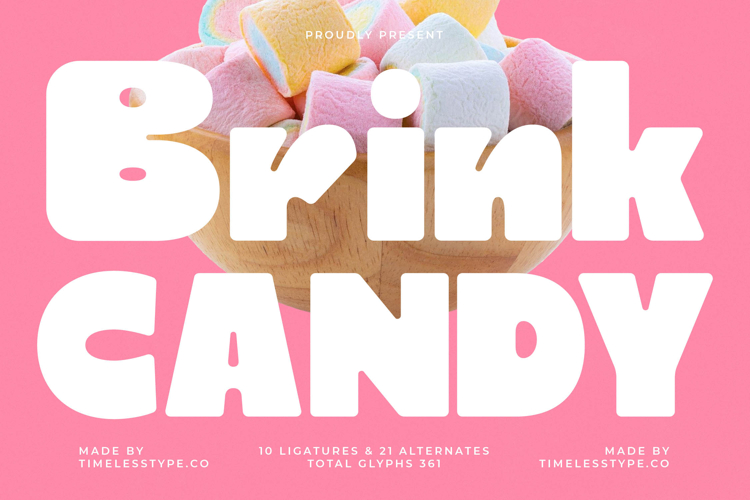
Brink Candy - Bold Display Font
Unleash a wave of delightful charm with Brink Candy - Bold Display Font, a truly captivating typeface designed to make every message pop. This bold display font radiates a warm, playful energy with its wonderfully rounded forms and substantial weight. Its inviting aesthetic is perfect for projects demanding an approachable yet high-impact visual presence, ensuring your designs are both memorable and endearing.
Crafted with meticulous attention to detail, Brink Candy - Bold Display Font includes 10 ligatures and 21 alternates, offering unparalleled customization and design flexibility. These robust features allow for unique typographic expressions, enabling designers to create truly distinctive logos, headlines, and titles that stand out. The smooth curves and consistent lines contribute to its effortless legibility and cohesive appearance.